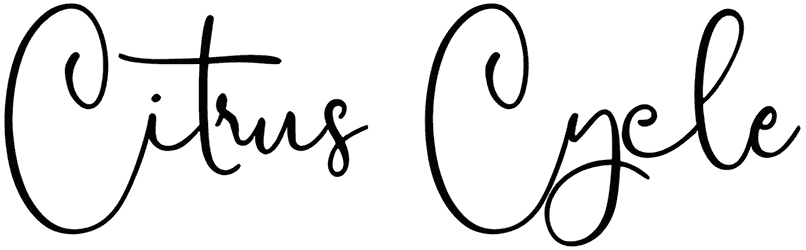
Citrus Cycle Font
Engage in a true sense, and love calligraphy fonts, find the fascinating best of them in this cursive display offered by RB! Citrus Cycle, with comfy, playful characters, is one of those opportunities that not everyone gets.
So, start working on something new and charming that will draw everyone’s attention right away by using this beautiful script font from our large inventory and letting yourself be enchanted by it. Nothing can stop the appeal of this font, even with the challenging letters.